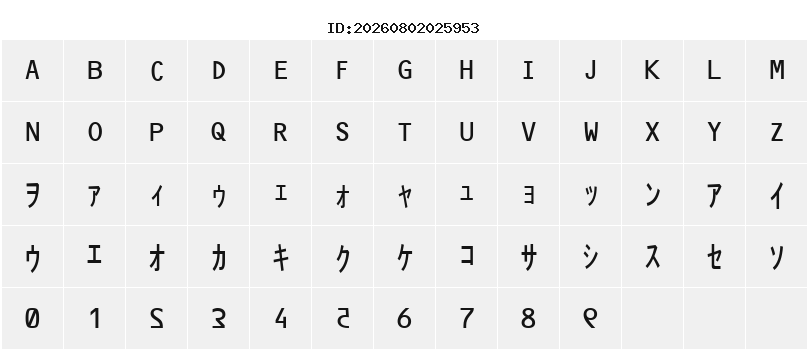
• Font Name: Matrix Code NFI
• Designer: Thomas W. Otto
• Description: This font is made for the Matrix fans and for making screensavers, backgrounds. I think it is not useful to write with this katagana glyphs in japanese!
About Matrix Code NFI.ttf
Matrix Code NFI.ttf is a modern, elegant sans-serif font designed for ultimate readability and visual harmony. Perfect for branding, headlines, web design, and print materials.